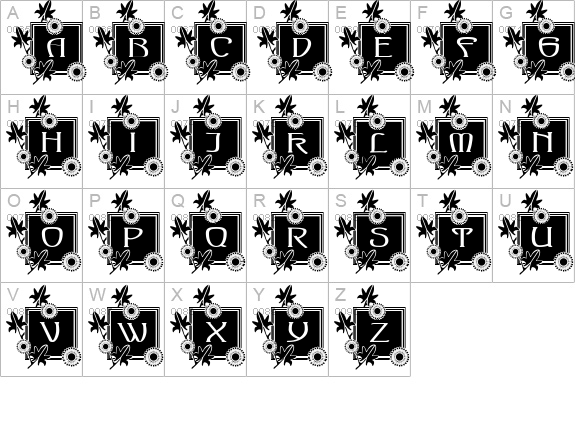
Sylvan-Capitals Font Details
Sylvan-Capitals font exudes a sense of elegance and sophistication with its intricate details and timeless design. Each letter is meticulously crafted with delicate curves and ornate flourishes, making it the perfect choice for projects that require a touch of refinement. This exquisite font is a harmonious blend of classic beauty and modern sensibility, making it versatile for a wide range of creative applications. Whether used for invitations, branding, or editorial design, Sylvan-Capitals adds a touch of luxury and sophistication to any project. The best part? Sylvan-Capitals is available for free download at FontsMarket.com, allowing you to elevate your designs without breaking the bank. Don't miss out on this stunning font that effortlessly combines tradition and innovation for a truly captivating result.